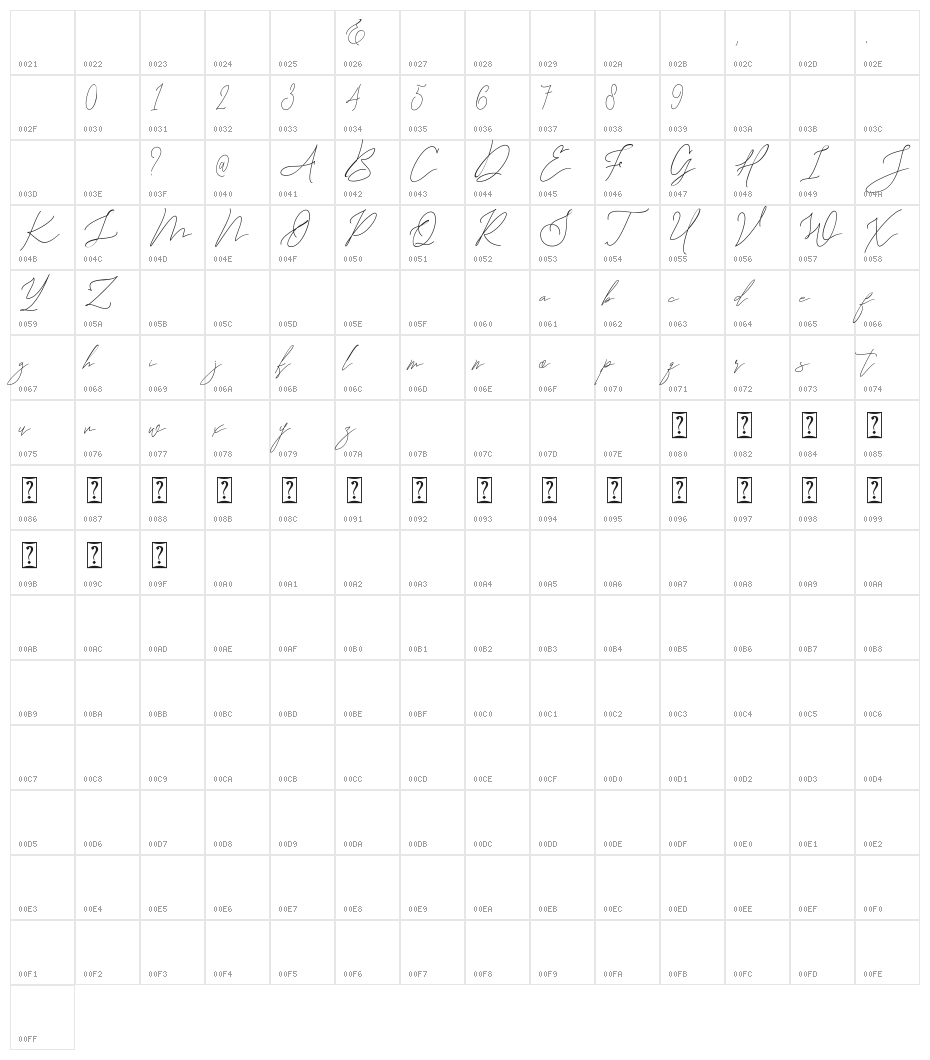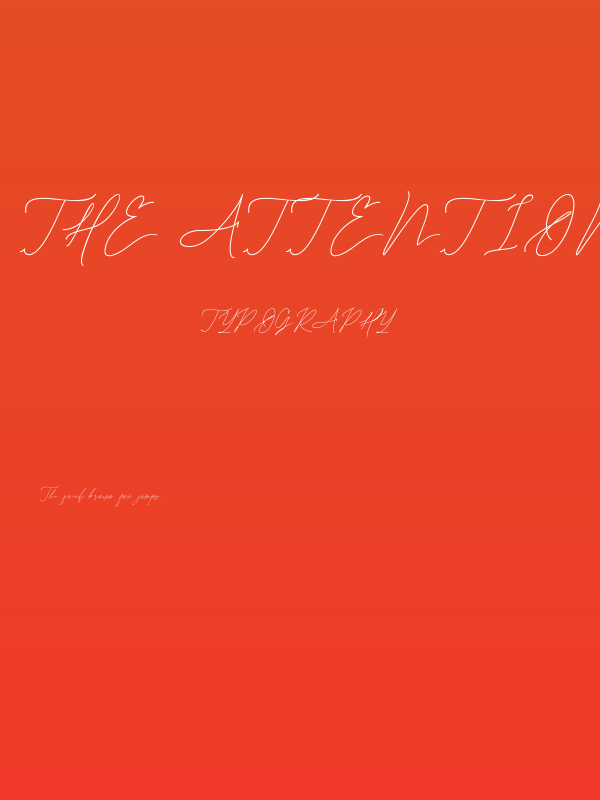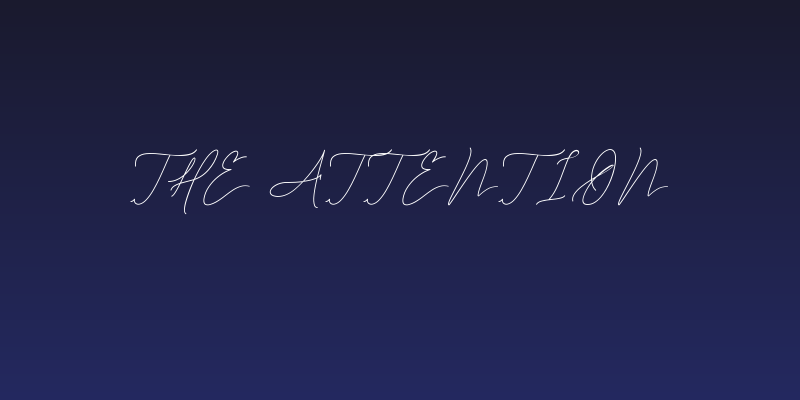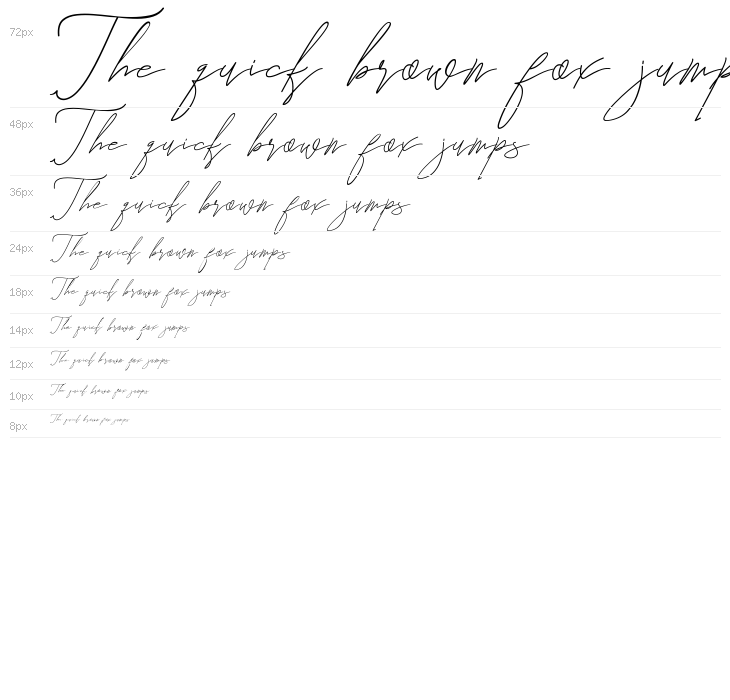
The Attention Font
The Attention Description
This font exudes elegance and sophistication with its fluid, cursive style. The characters are intricately designed with a delicate touch, featuring graceful loops and swirls that add a sense of movement and flow. The uppercase letters are tall and slender, while the lowercase letters maintain a consistent rhythm, enhancing readability. The numerals are equally stylish, complementing the overall aesthetic. Special characters are thoughtfully crafted, maintaining the font's cohesive look. This font is ideal for projects that require a personal, handwritten touch, such as invitations, greeting cards, or branding materials.
| Overall Style | Elegant, Handwritten |
| Use Case | Invitations, Greeting cards, Branding |
| Proposed Projects | Ideal for wedding invitations, personal branding, greeting cards, and elegant logos. |